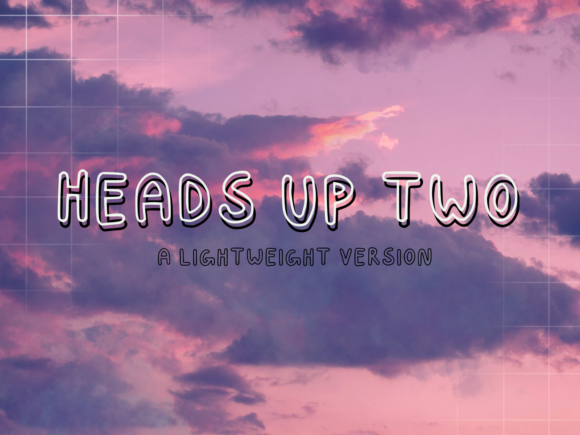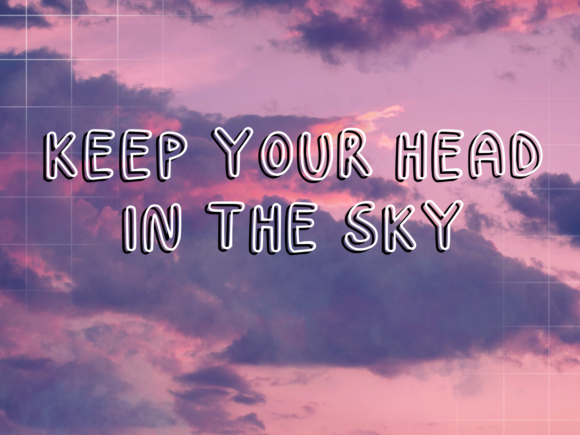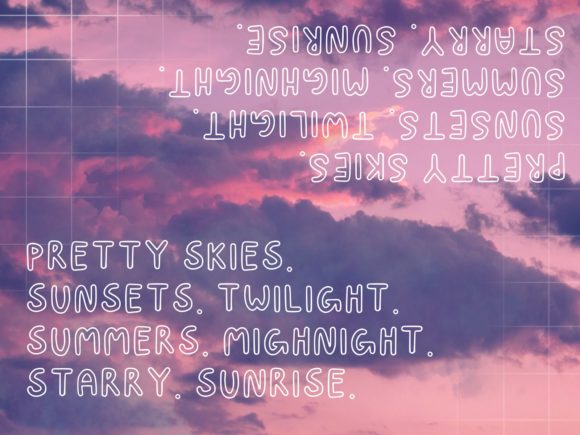
Heads Up Two Font
About Heads Up Two Font
Heads Up Two is a timeless handwritten font. This font is the 2.0 version of Heads Up font! It features a bubble effect that will add a fun touch to your designs.